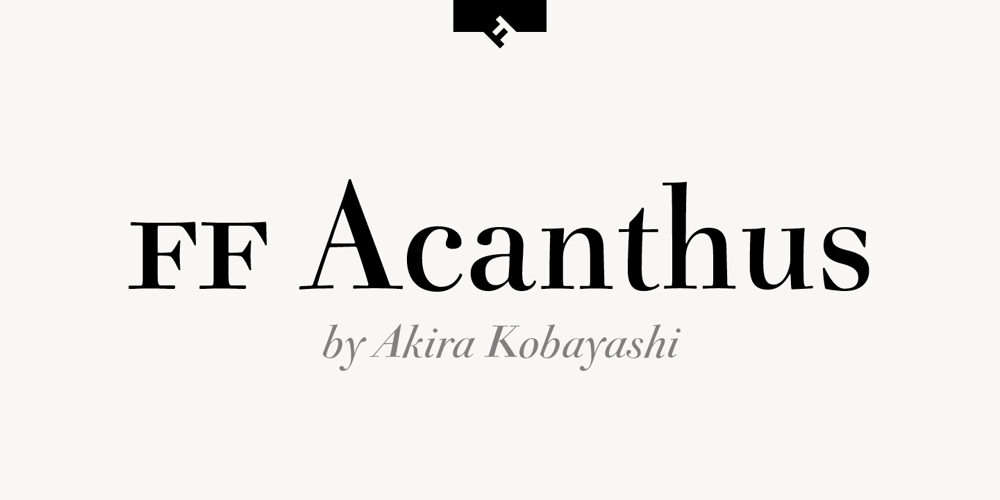
FF Acanthus Font Family was designed by Akira Kobayashi and published by FontFont. FF Acanthus contains 10 styles and family package options. Japanese type designer Akira Kobayashi created this serif FontFont between 1998 and 2000. The family has 10 weights, ranging from Regular to Bold (including italics) and is ideally suited for book text, festive occasions as well as editorial and publishing projects. FF Acanthus provides advanced typographical support with features such as ligatures, small capitals, alternate characters, and case-sensitive forms. It comes with proportional oldstyle and proportional lining figures.